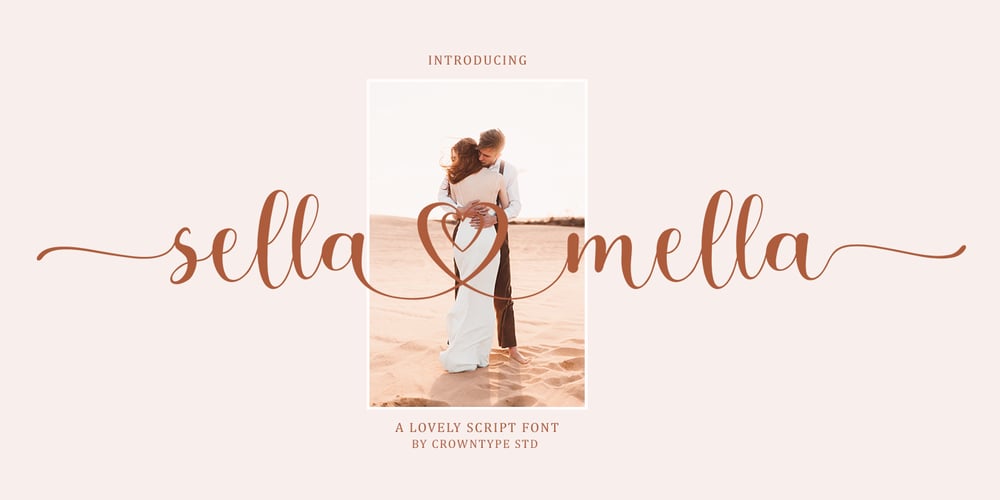
Sella Mella
Sella Mella font
Sella Mella Font Family was designed by Faqihuddin Ilza and published by Crowntype Studio. Sella Mella contains 3 styles and family package options. Sella Mella is a script type family of four fonts. It is inspired by Lovely Fonts and has a soft and welcoming look. Sella Mella can be used for branding, packaging and wherever you need a script font that is easy to read and smooth. Sella Mella has many ties, strokes, and alternative characters that will make your designs unique and beautiful.You can also purchase Sella Mella as a Font Family and adjust the weight of Sella Mella seamlessly between Italic and Bold weights. Note that you need design software that supports the Font Family.Thank You…